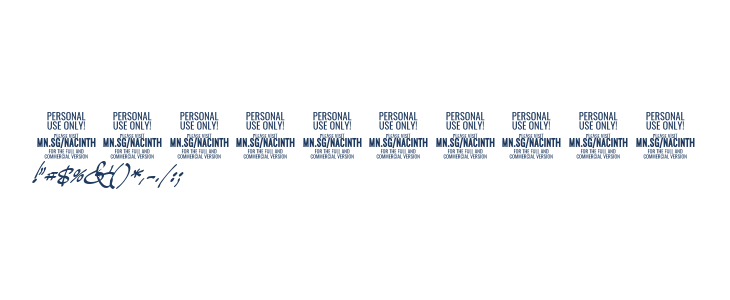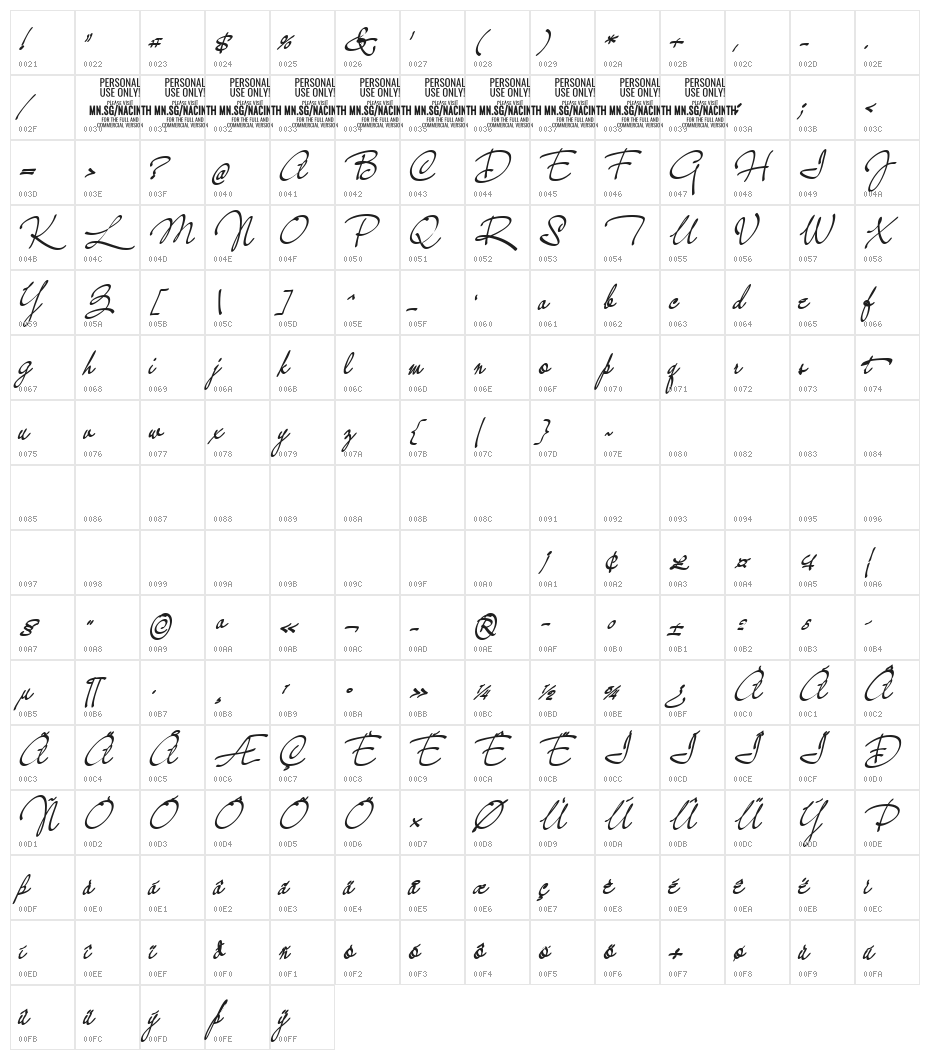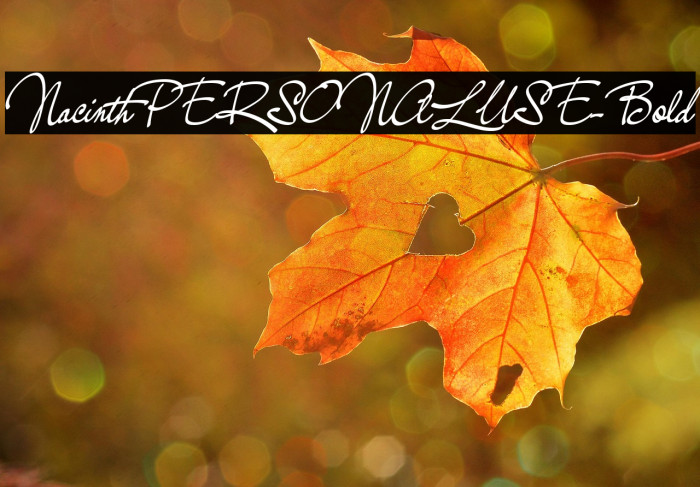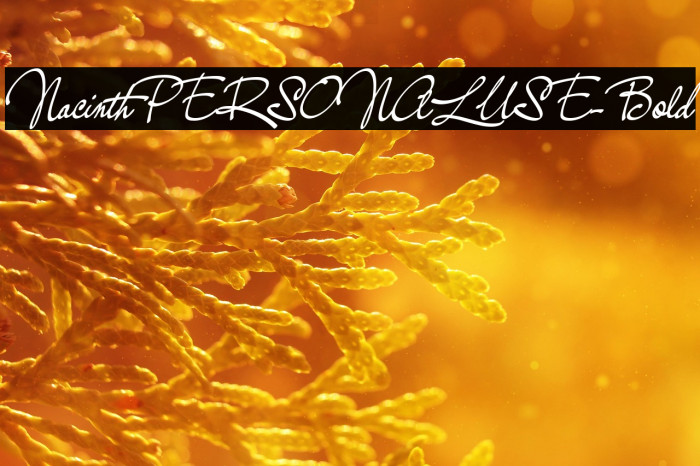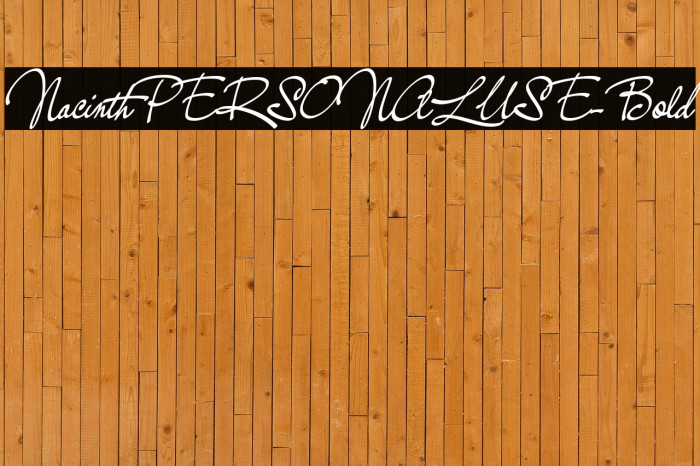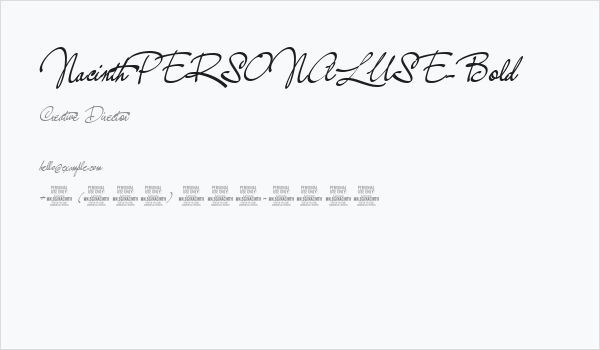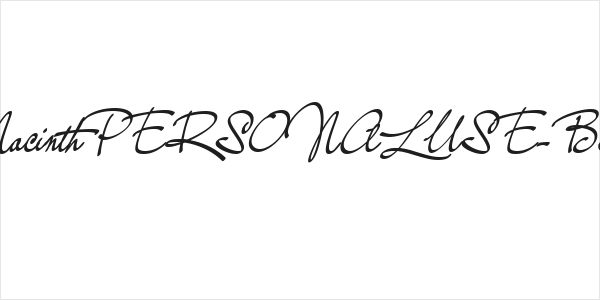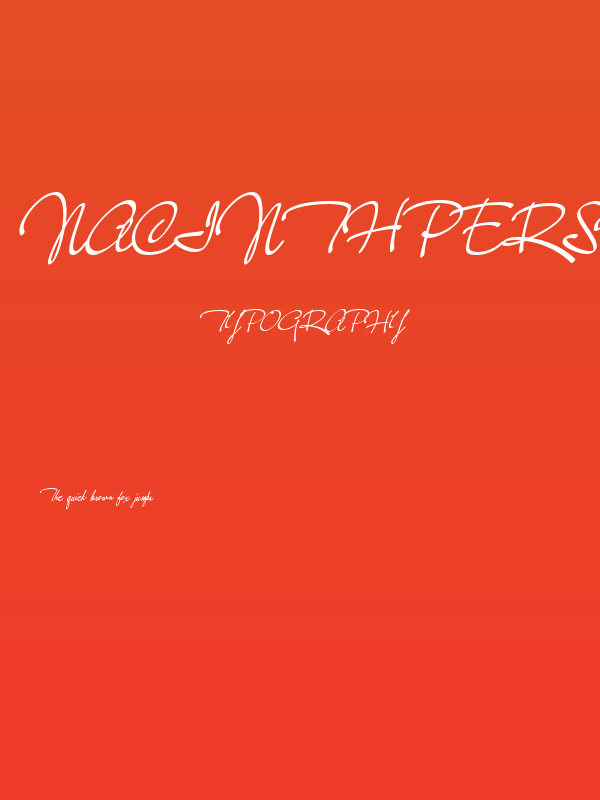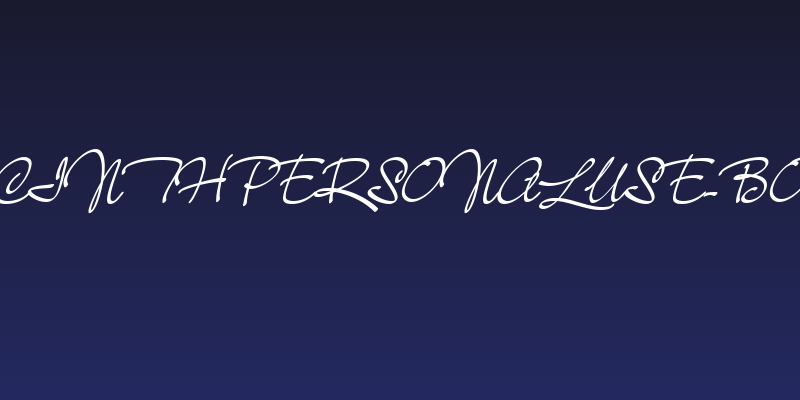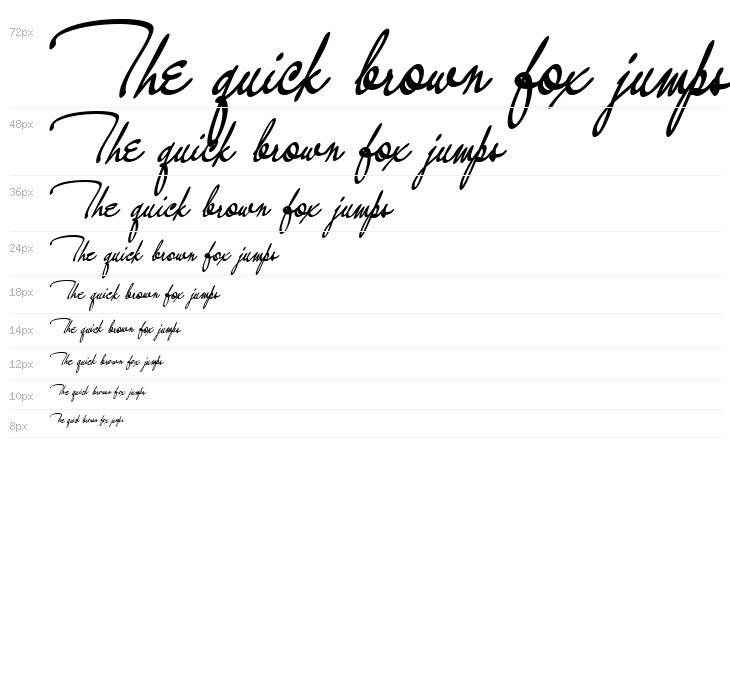
NacinthPERSONALUSE-Bold Font
NacinthPERSONALUSE-Bold Description
This font features a dynamic and elegant script style, characterized by fluid, interconnected strokes that convey a sense of movement and sophistication. The uppercase letters are particularly ornate, with sweeping curves and flourishes that add a touch of drama. The lowercase letters maintain a consistent flow, enhancing readability while retaining the decorative appeal. The numerals and special characters are crafted with the same attention to detail, ensuring a cohesive look across all text. This font's bold weight adds to its striking presence, making it ideal for creating impactful designs.
| Use Case | Logos, Invitations, Headlines |
| Proposed Projects | Ideal for wedding invitations, branding, logo design, and elegant packaging. |